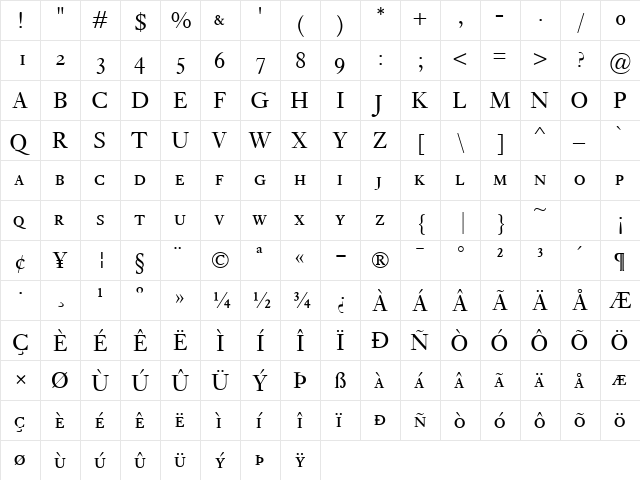
Kis Classico SC Regular Font Preview
Kis Classico SC Regular
Kis Classico SC Regular Font Details
Design Context for Kis Classico SC Typeface
Kis Classico SC has the warm character of retro typography — evoking diners, record sleeves, and the golden age of print advertising.
Font Pairing: Combine Kis Classico SC with a simple slab or neutral sans — period-accurate companions reinforce the vintage feel without competing for attention.
Pro Tip: Lean into Kis Classico SC's period character by pairing it with aged paper textures, muted colour palettes, and vintage illustration styles.